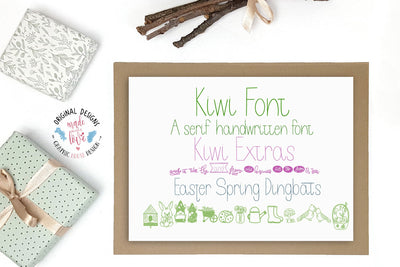
Kiwi Font and Easter Spring Dingbat
Kiwi Font is a playful handwritten serif font that can be used for all kinds of fun projects. It includes full letters and numbers. Contains extra ligature characters which can be reached from the Discretional Ligatures panel by activating it.
Kiwi Extra embellishes your projects with more decorative elements. And as a bonus a cute Easter Spring Dingbat font with 26 cute easter and garden designs.